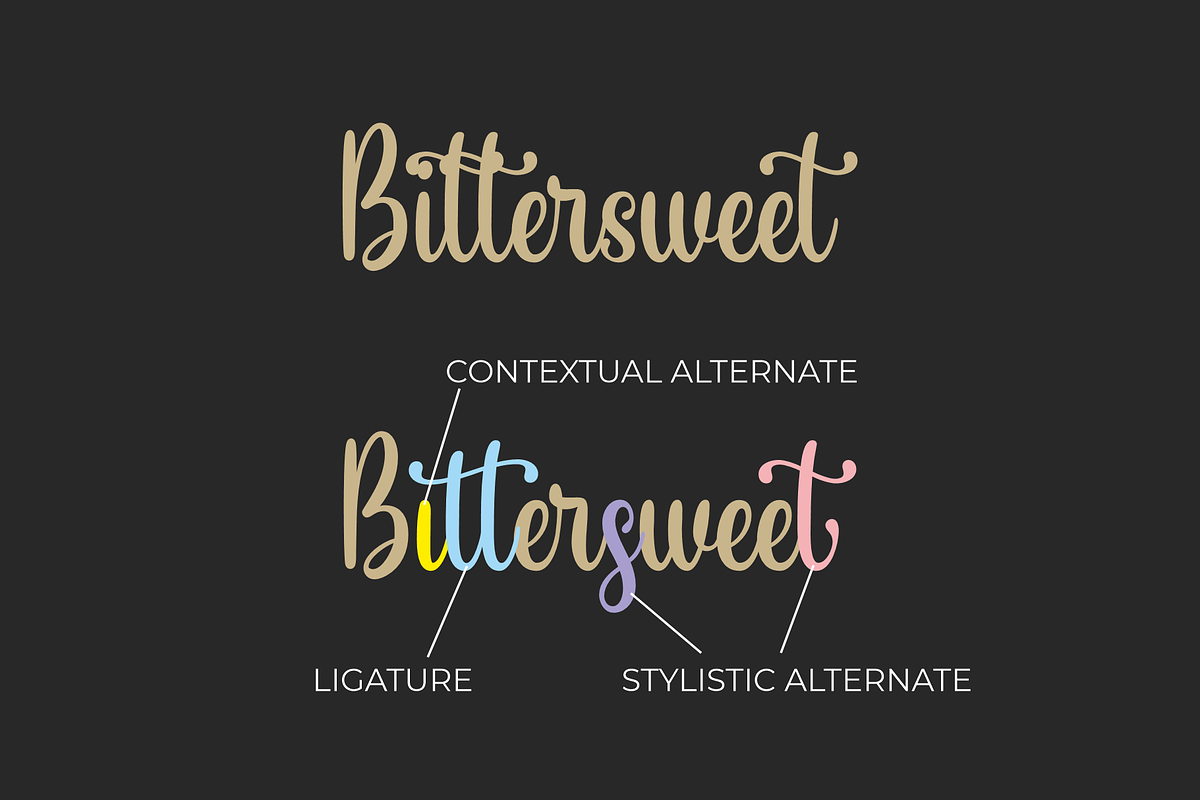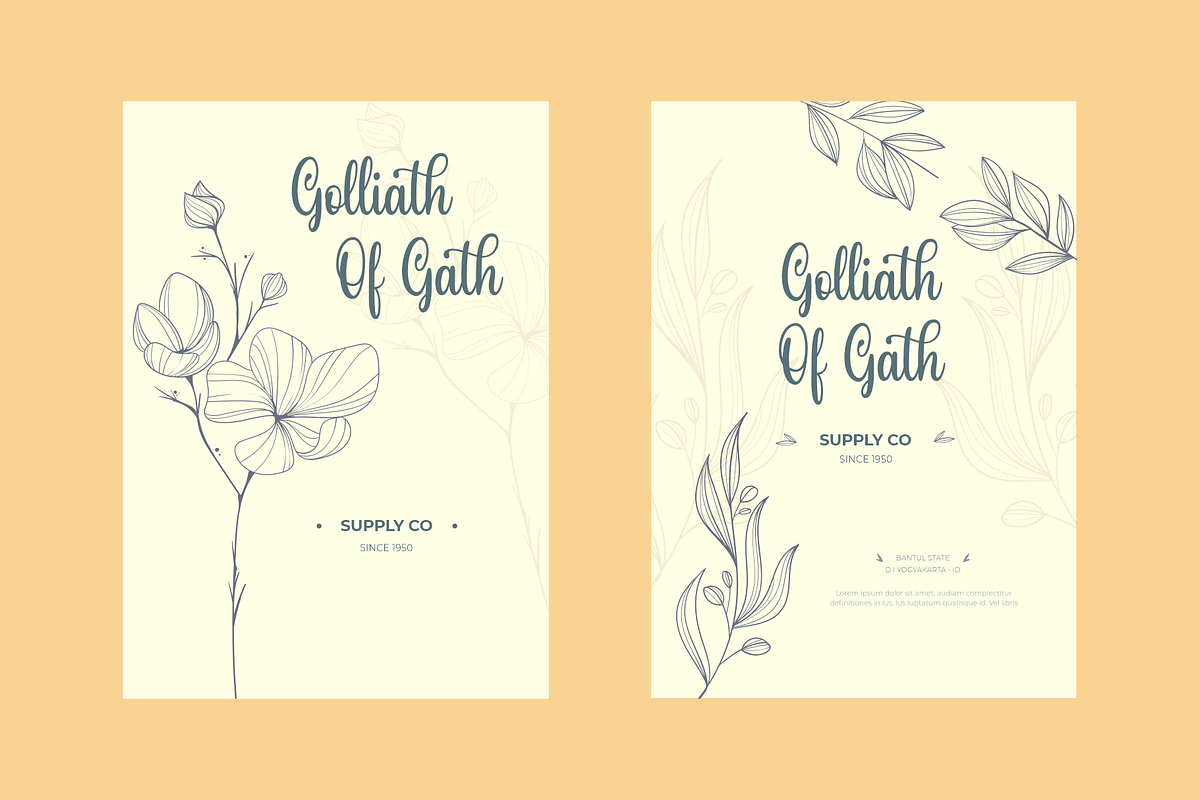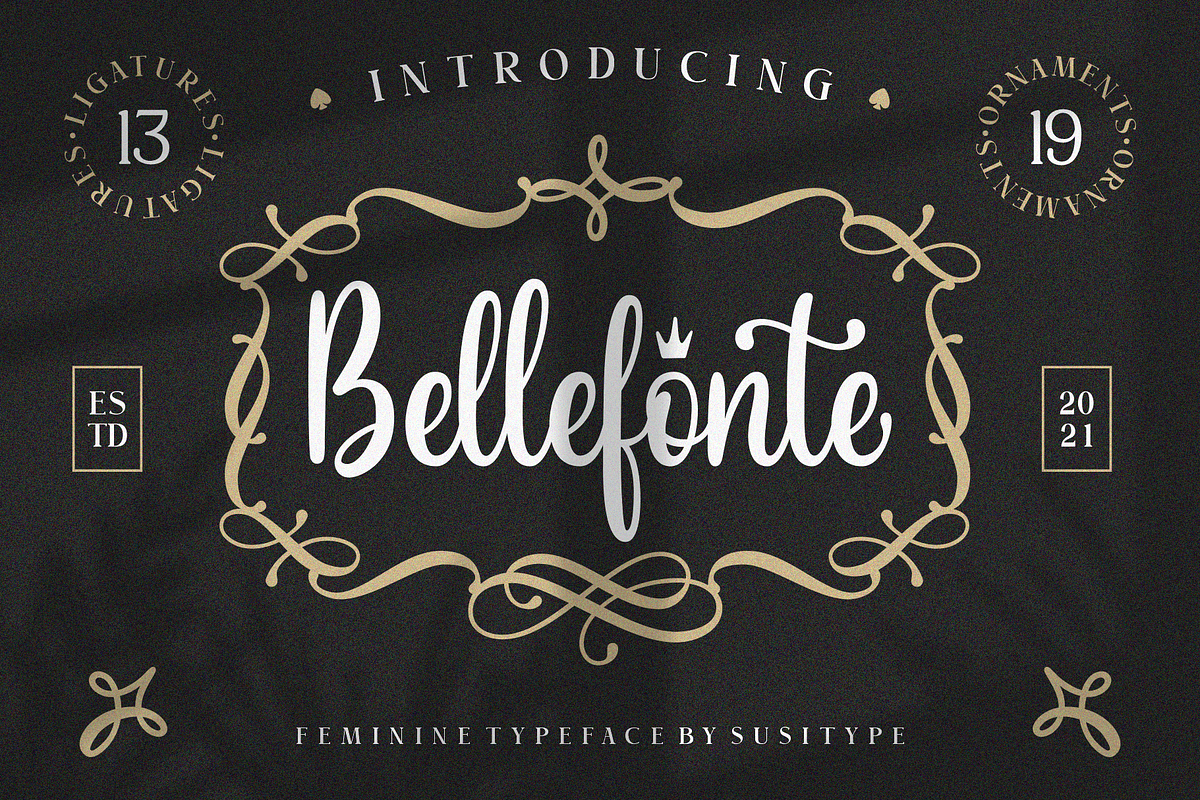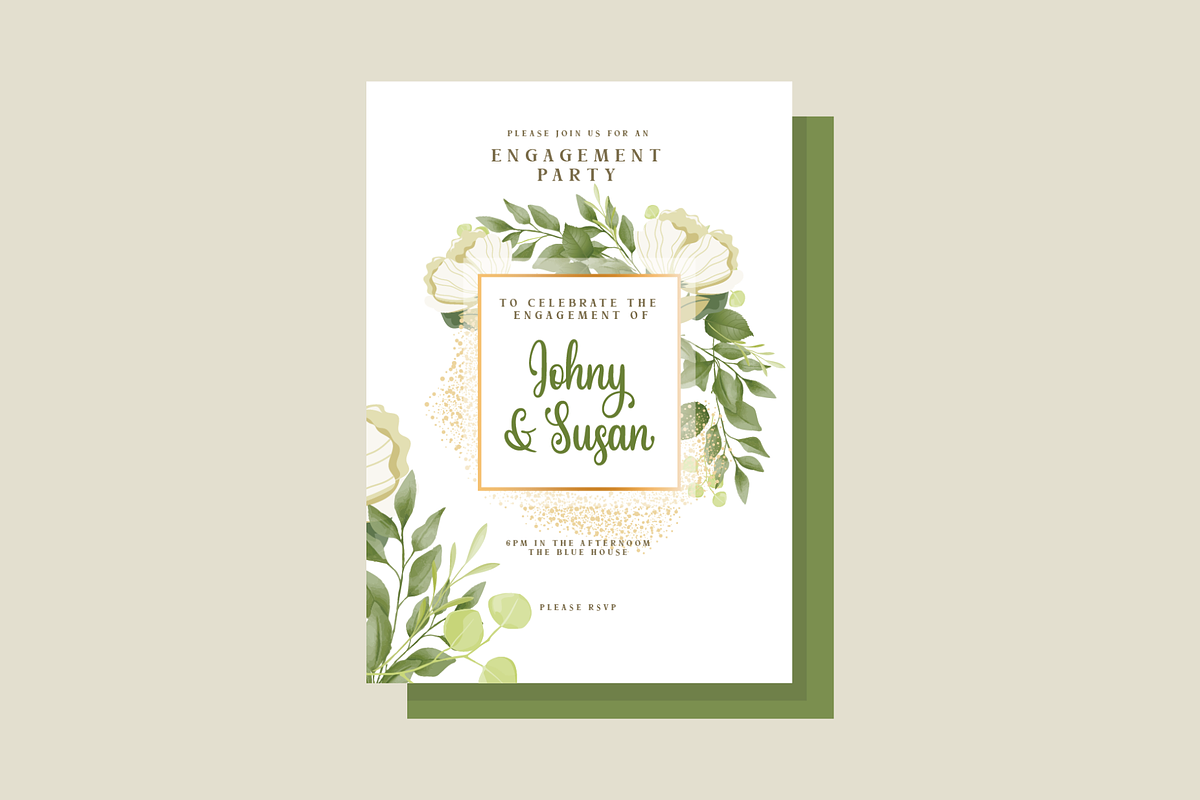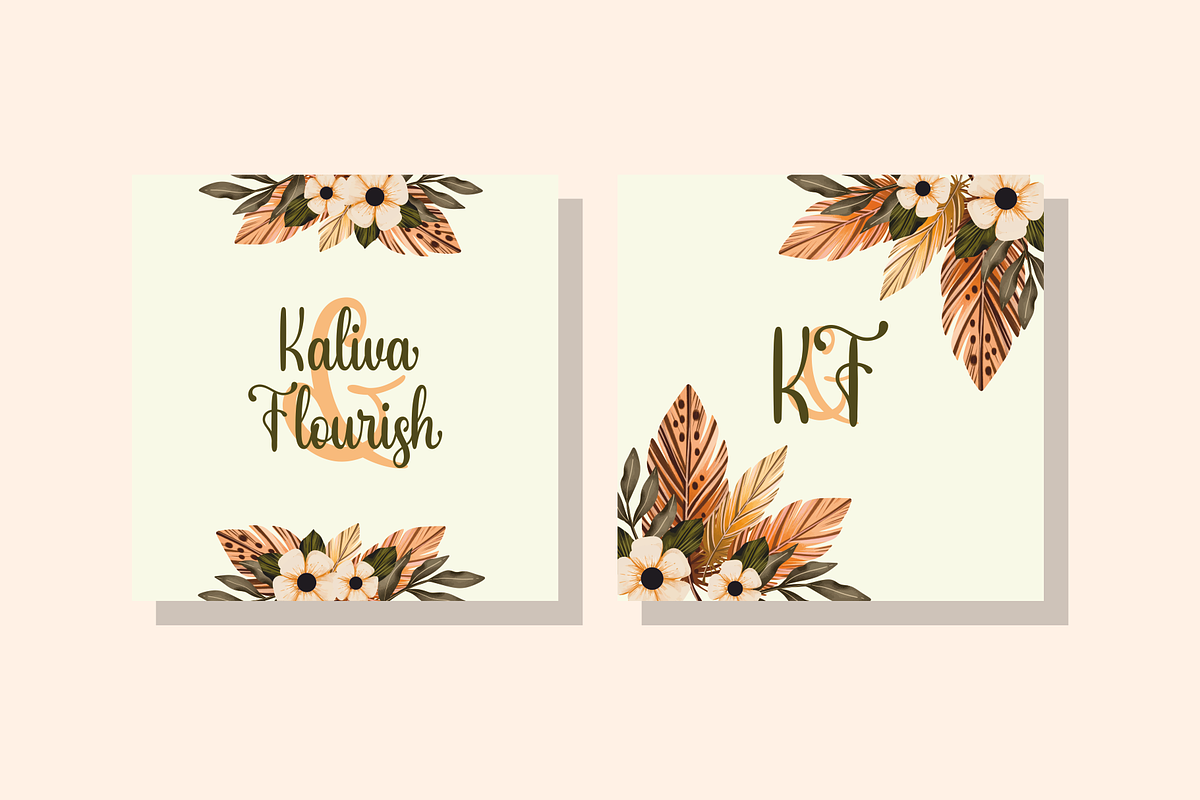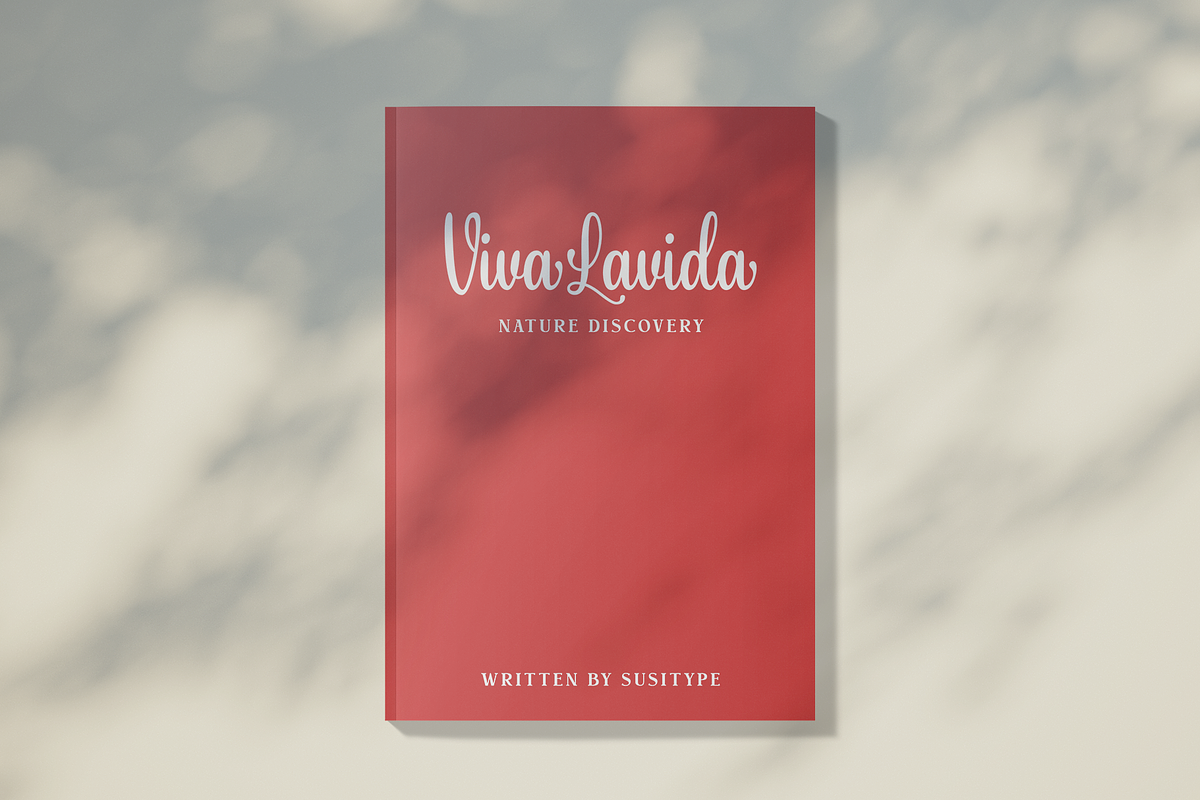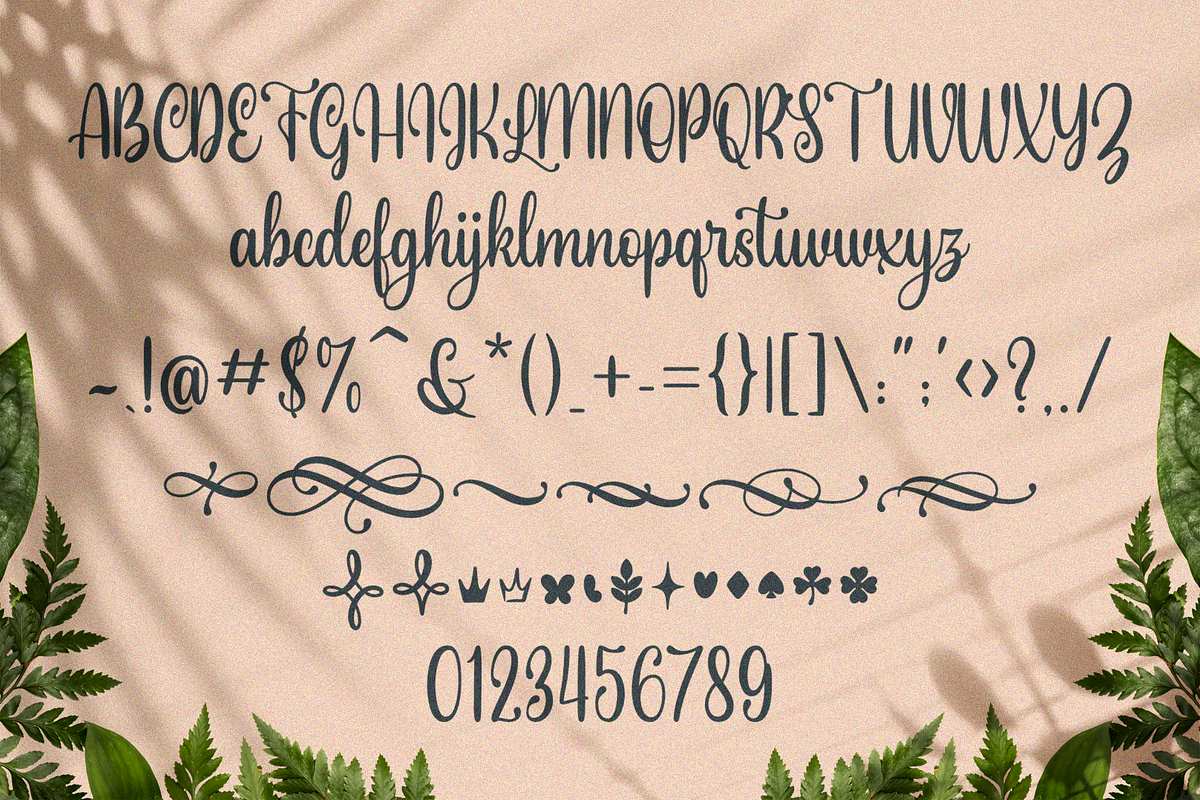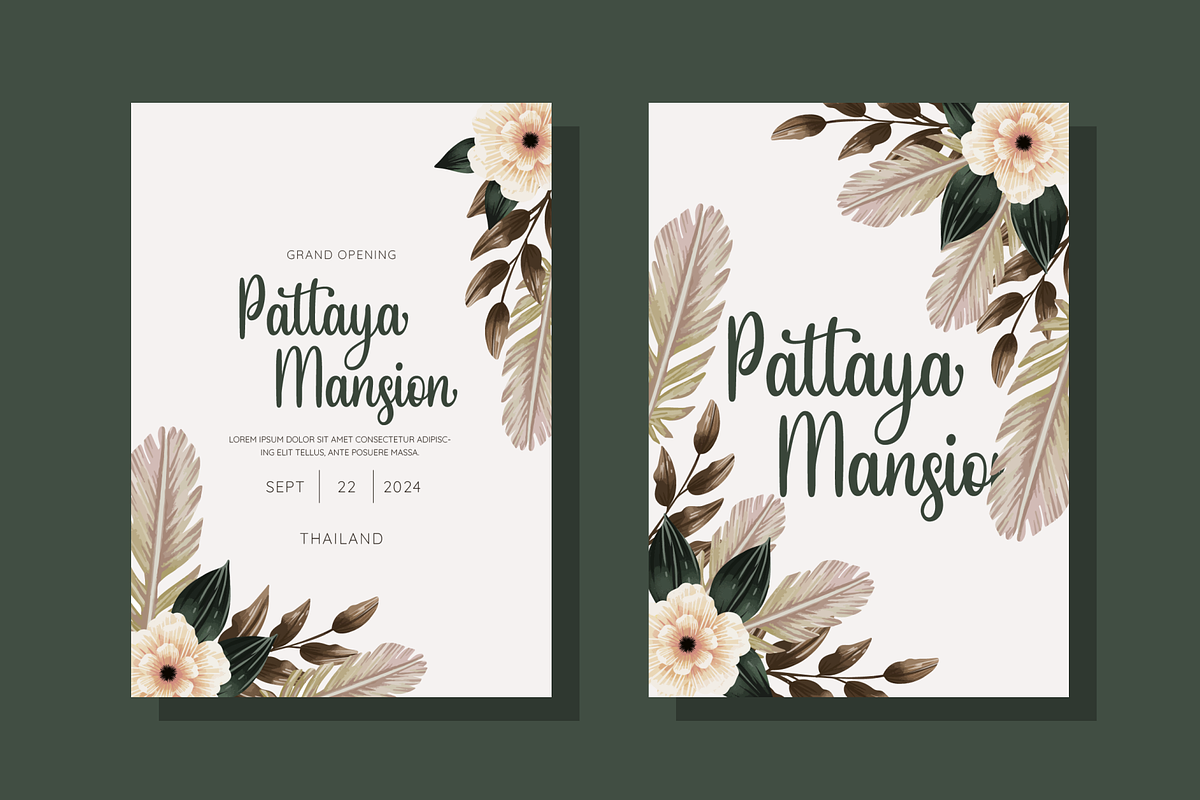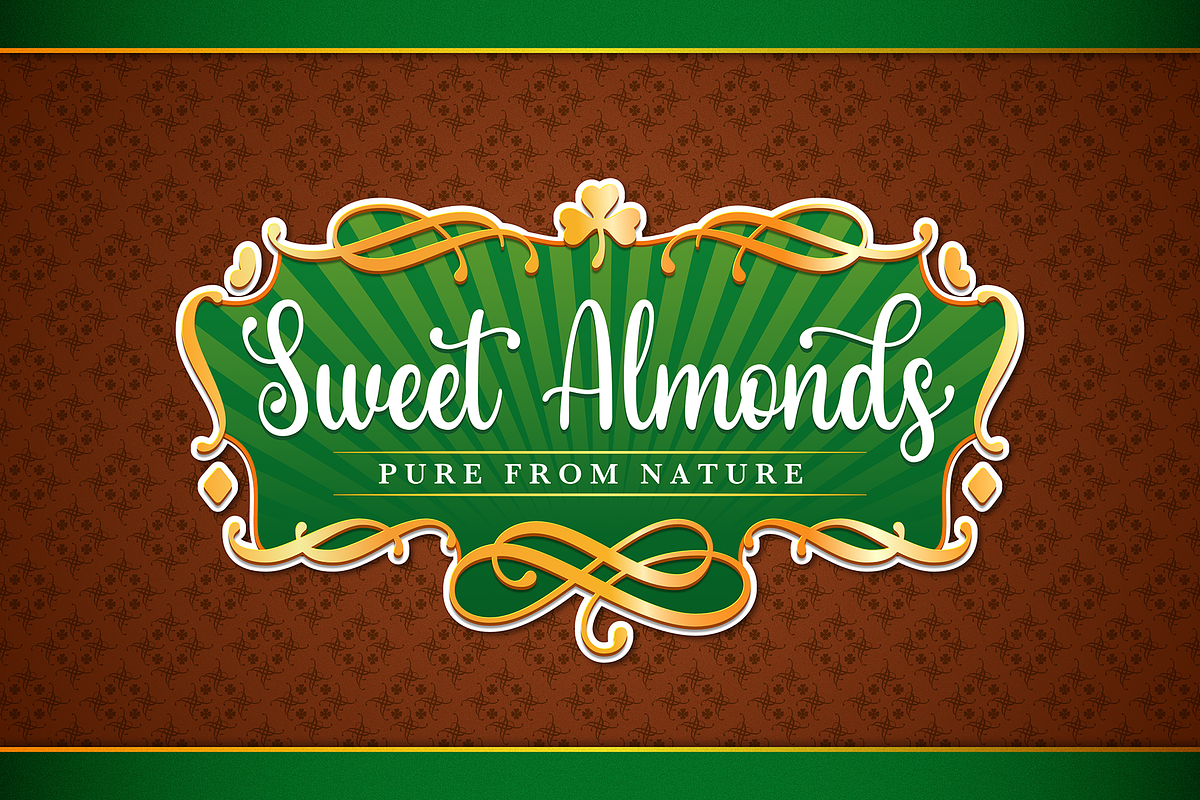
Bellefonte - Feminine Typeface
Introducing Bellefonte, a new feminine script typeface by us. This typeface contains 13 ligatures , 19 swashes ornament, stylistic set alternates and contextual alternate for letter i pairing with letter t. This font will more suitable for your feminine projects related. Either modern projects or vintage themed projects. And yes, standard multilingual accents also available. Thank you.